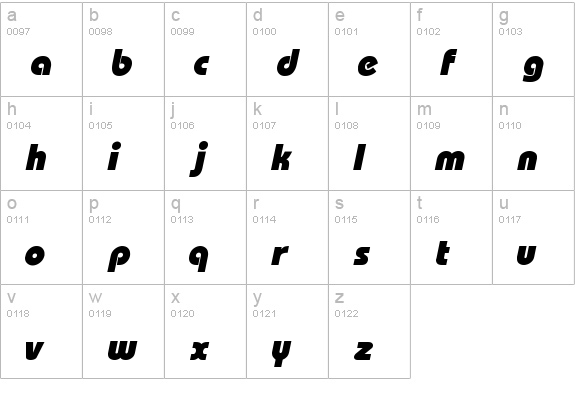
Bahamas_Heavy-X Font Details
The Bahamas_Heavy-X font is a bold and impactful typeface that exudes strength and character. With its heavy weight and distinctive letterforms, this font is perfect for making a statement in your designs. Whether you're creating posters, headlines, or branding materials, Bahamas_Heavy-X will grab attention and leave a lasting impression. Best of all, this font is available for free download at FontsMarket.com. Simply visit the website to access this striking typeface and take your design projects to the next level. Don't miss out on the opportunity to enhance your creations with the unique style and versatility of the Bahamas_Heavy-X font. Download it today and unleash your creativity!